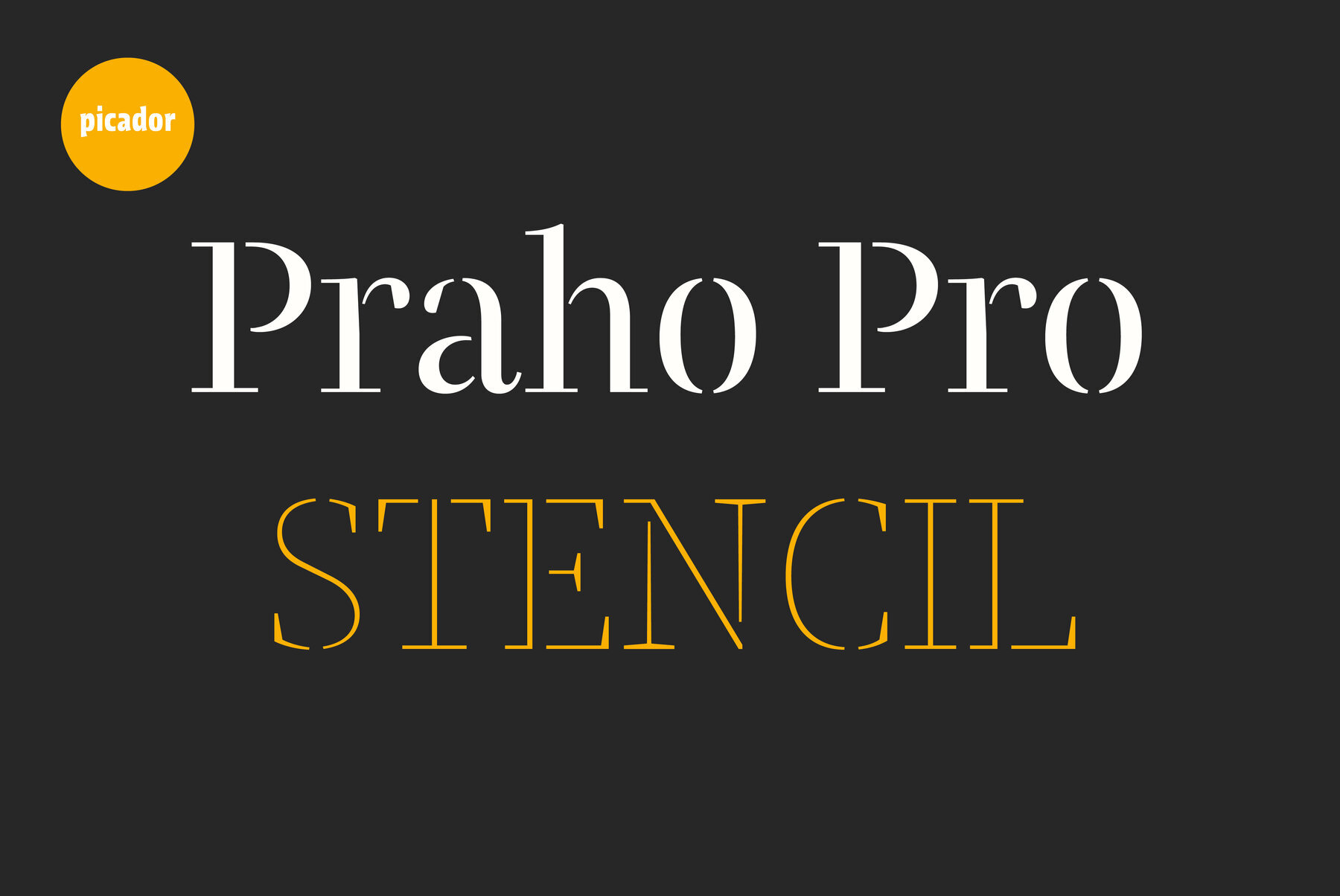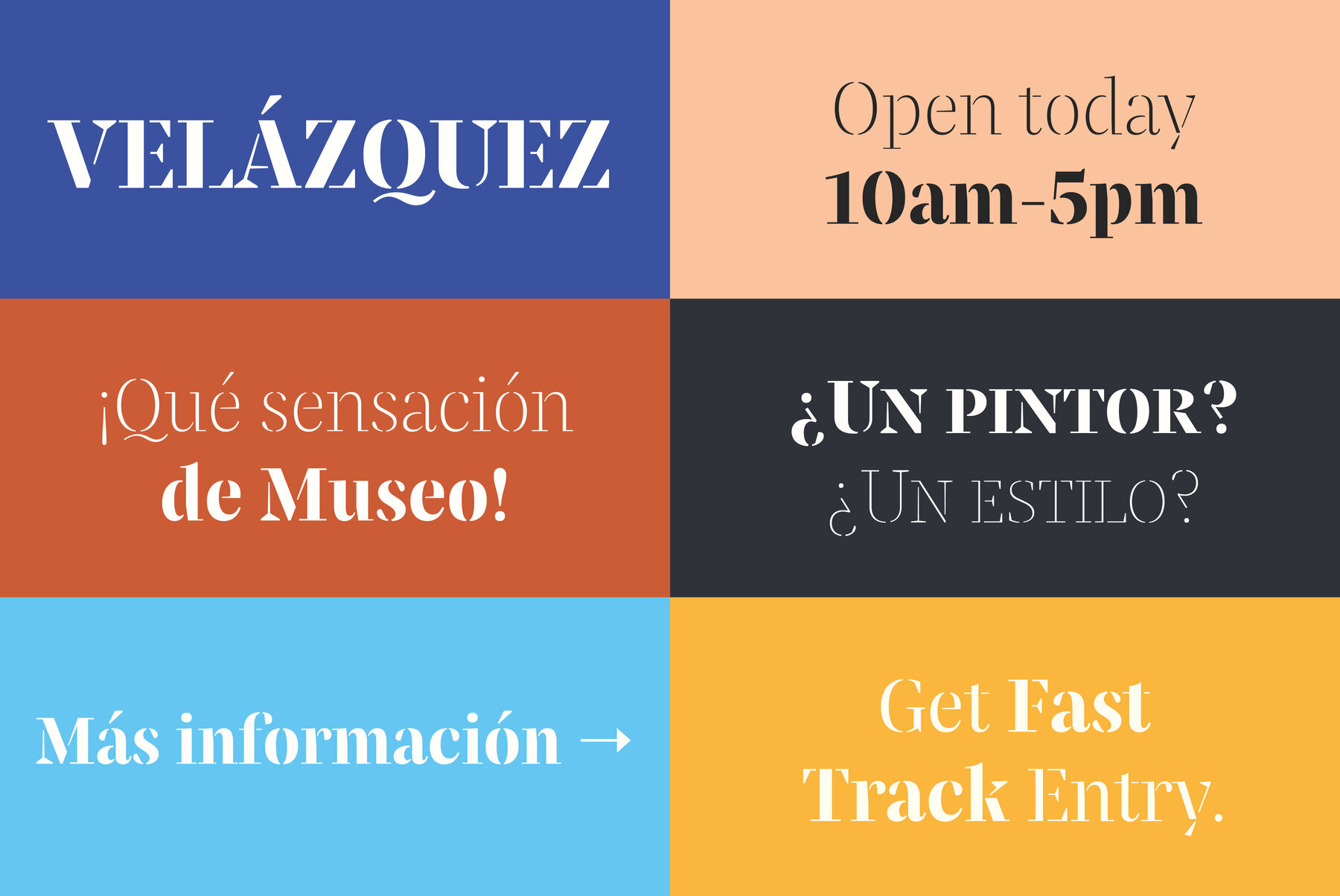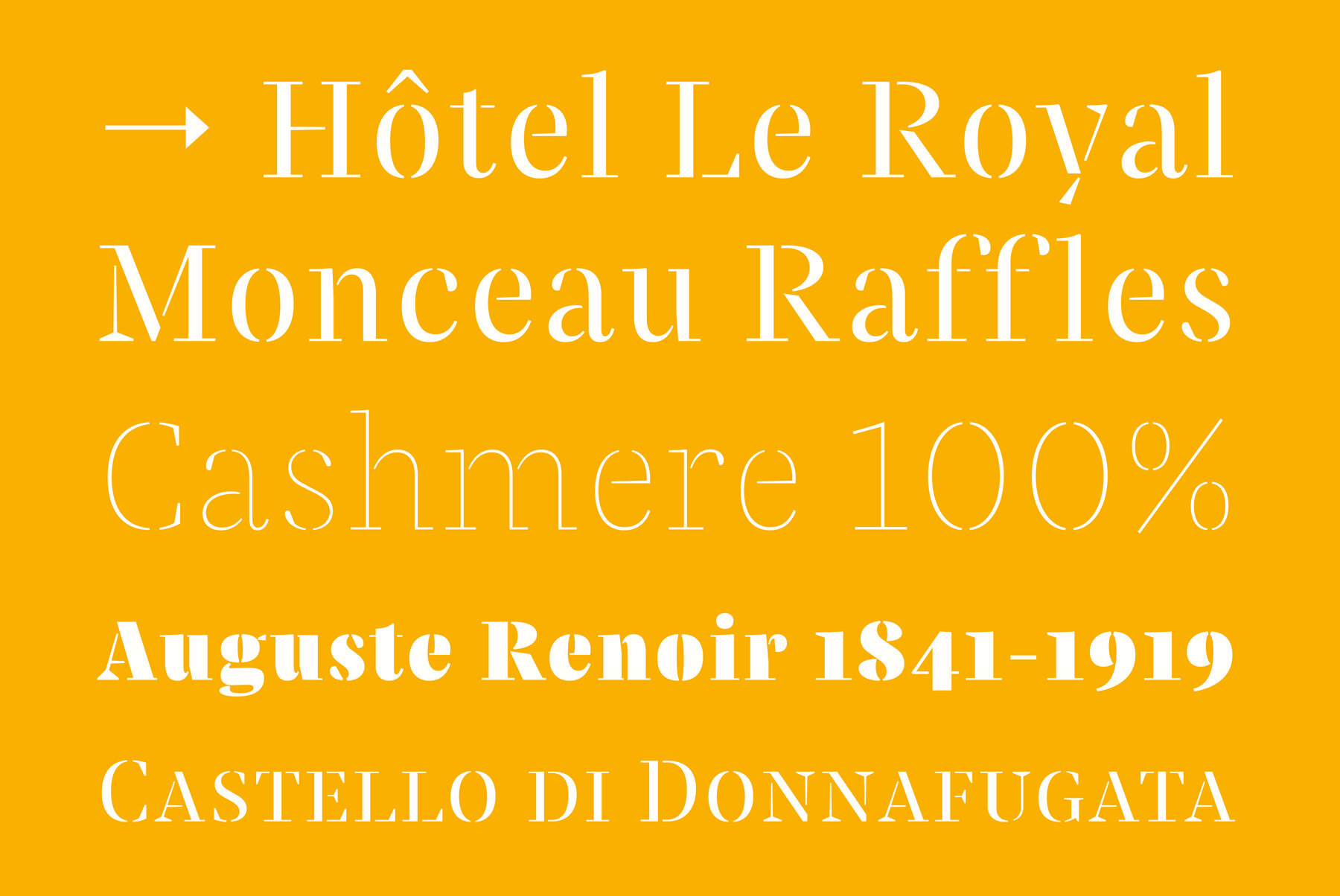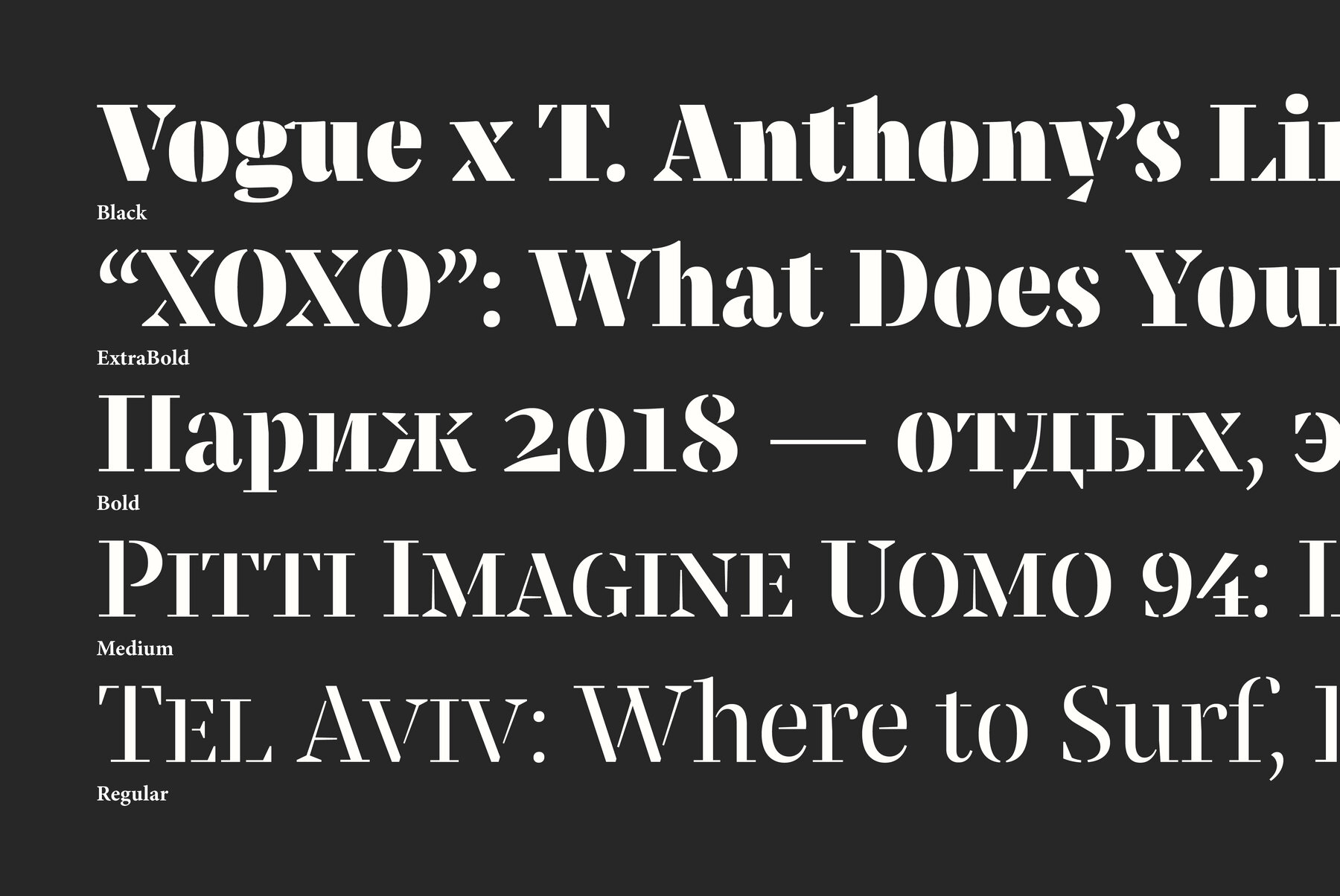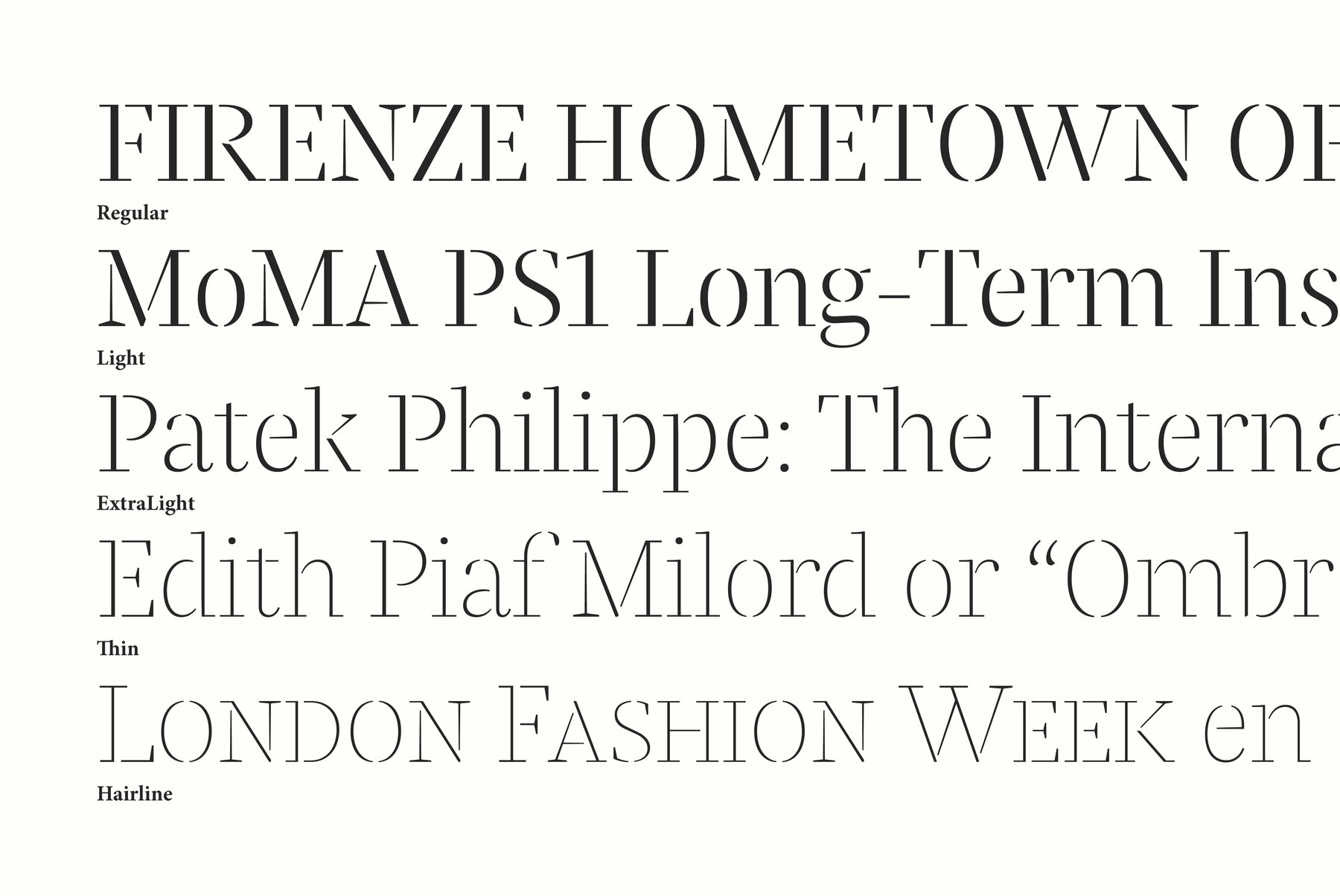
Praho Pro Stencil Font
Presenting Praho Pro, a proud part of the Warsaw Types project celebrating local typographic heritage. Born out of collaboration among 12 young Polish typographers, this typeface draws inspiration from the unique, historical aura of Warsaw's Praga district. With its high contrast, thin serifs, sharp terminals, and large x-height, Praho Pro Stencil is designed to create distinct headlines. Experience the richness of Polish typographic tradition now available in a stencil version!
Maciej Włoczewski is a student who is currently studying graphic design at the Academy of Fine Arts in Warsaw. He specialises in typography and book design.